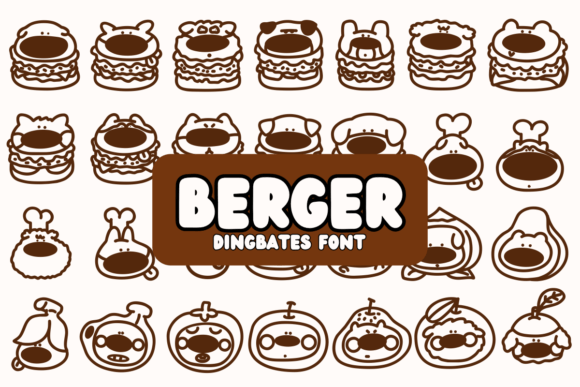
Introducing Berger Font: The Playful Dingbat Font with a Burger Twist
Are you tired of using the same old fonts for your creative projects? Look no further than Berger Font, a fun and unique dingbat font that features cute burger designs with a twist. In this article, we’ll dive into the world of Berger Font and explore its features, benefits, and uses.
What is Berger Font?
Berger Font is a dingbat font that showcases a collection of burger designs, each with a top bun shaped like a dog’s head. This playful font is perfect for creative projects that require a touch of whimsy and fun. Each character in the font features a different dog-burger combo, making it a one-of-a-kind addition to any design.
The Inspiration Behind Berger Font
The inspiration behind Berger Font is the perfect blend of two favorite things: burgers and dogs. Who doesn’t love a good burger and a cute dog? The creators of Berger Font took these two beloved things and merged them into a single, adorable font. The result is a font that’s both fun and quirky, perfect for designs that need a bit of personality.
Features of Berger Font
Berger Font comes with a range of features that make it a versatile and fun font to use. Some of its key features include:
- A unique dog-burger combo design for each character
- A playful and whimsical feel that’s perfect for creative projects
- A dingbat font that’s easy to use and customize
- A range of characters, including letters, numbers, and symbols
Benefits of Using Berger Font
So, why should you use Berger Font for your creative projects? Here are just a few benefits of using this fun and unique font:
- Adds a touch of whimsy and fun: Berger Font is the perfect way to add a bit of personality to your designs. Whether you’re working on a logo, a poster, or a website, Berger Font is sure to bring a smile to your audience’s faces.
- Stand out from the crowd: With Berger Font, you’ll be able to create designs that stand out from the crowd. This font is unlike anything else out there, making it the perfect choice for designers who want to make a statement.
Uses for Berger Font
Berger Font is a versatile font that can be used for a range of creative projects. Here are just a few ideas to get you started:
- Logos and branding: Berger Font is perfect for creating fun and playful logos and branding materials. Whether you’re working on a restaurant logo or a pet store brand, Berger Font is sure to make a statement.
- Posters and flyers: Add a touch of whimsy to your posters and flyers with Berger Font. This font is perfect for promoting events, products, or services in a fun and creative way.
- Web design: Berger Font can add a bit of personality to your website or blog. Use it for headings, titles, or even as a decorative element.
Tips for Using Berger Font
Here are a few tips for using Berger Font effectively in your designs:
- Use it sparingly: Berger Font is a bold and playful font, so it’s best to use it sparingly. Use it for headings or titles, and pair it with a simpler font for body text.
- Experiment with colors: Berger Font looks great in a range of colors, so don’t be afraid to experiment. Try using bright and bold colors to really make your design pop.
- Pair it with other fun fonts: Berger Font is a fun and playful font, so it pairs well with other fun and playful fonts. Try pairing it with a sans-serif font or a script font for a unique look.
Berger Font is a fun and unique dingbat font that’s perfect for creative projects. With its cute burger designs and dog-shaped top buns, this font is sure to add a touch of whimsy and fun to any design. Whether you’re working on a logo, a poster, or a website, Berger Font is a great choice for designers who want to make a statement.
| Font Type | Dingbat Font |
| Characters | Letters, numbers, and symbols |
- What is Berger Font?
- Berger Font is a fun and unique dingbat font featuring cute burger designs with dog-shaped top buns.